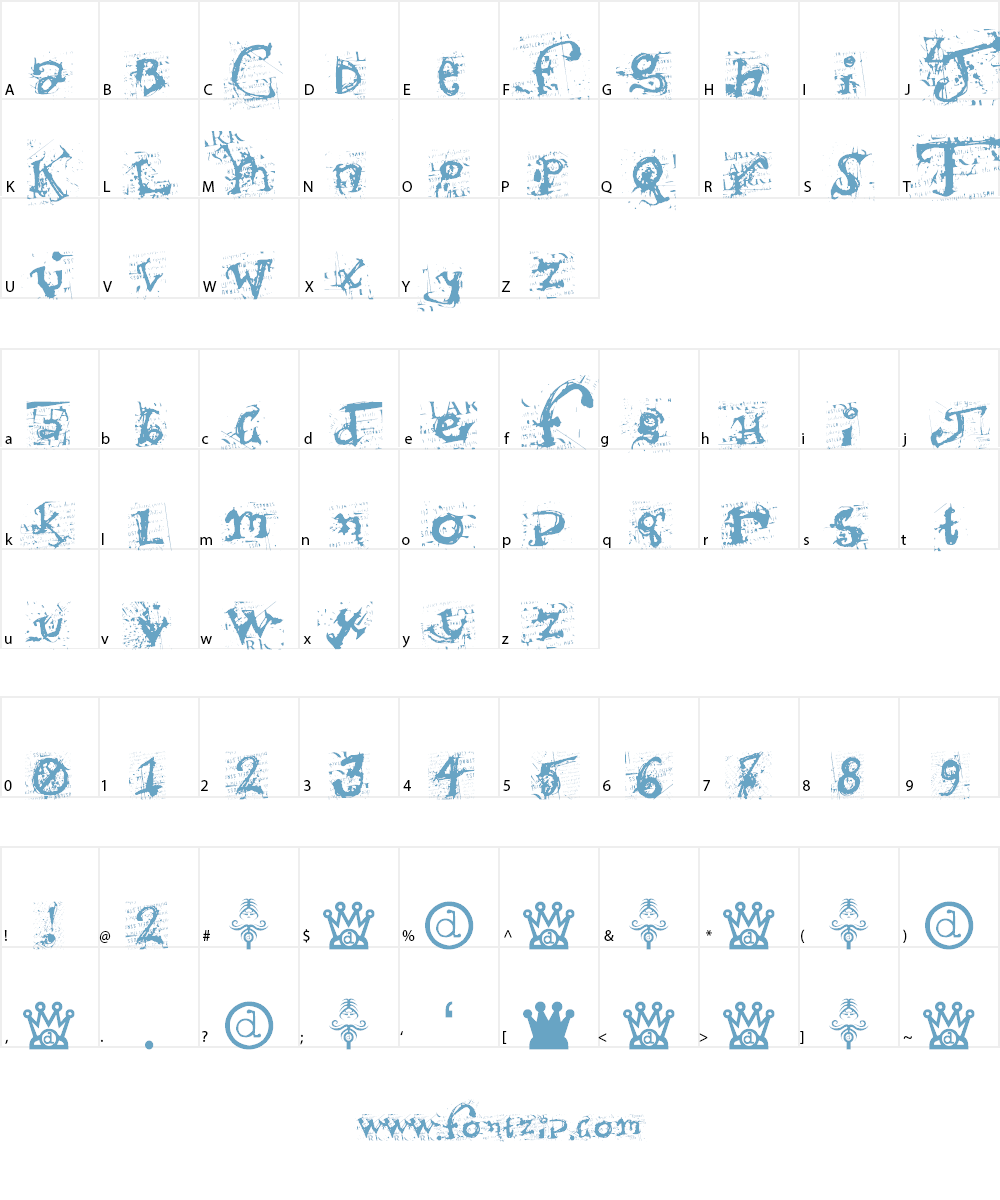
This new disturbed font is dedicated to the world's greatest pornographer / politician, Larry Flynt. It's a remix of Taxidermist. This is probably the raunchiest, nastiest, grungiest font this side of the Mighty Mississippi, so take it and enjoy it. Remember: This font belongs to me, not you.